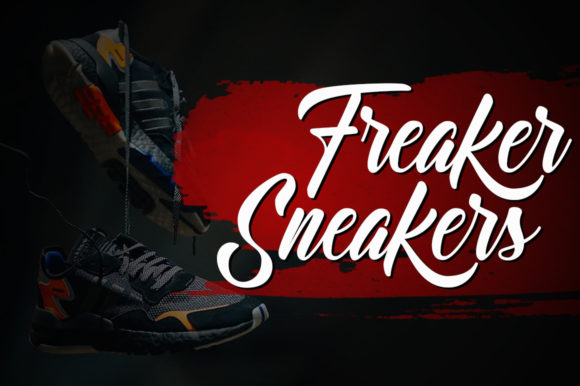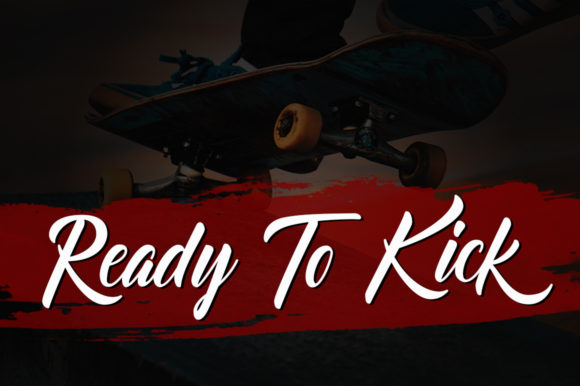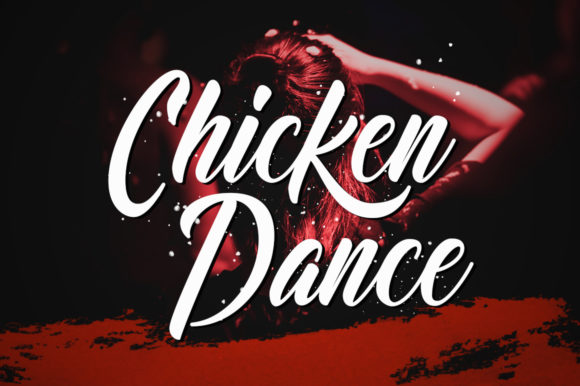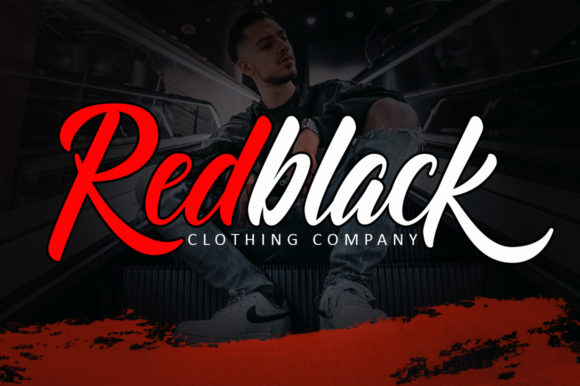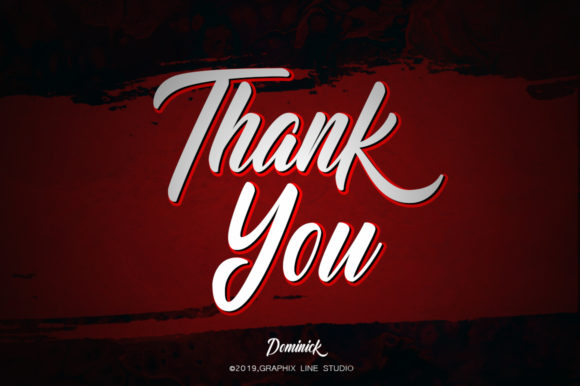
Introducing Dominick Font: The Bold and Modern Handwritten Font for Stunning Designs
Are you tired of using the same old fonts for your designs? Look no further! Dominick Font is here to revolutionize your creative process with its bold and modern handwritten style. This versatile font is perfect for designers and crafters who want to add a personal touch to their work. With Dominick Font, you can create beautiful designs in an instant, and take your projects to the next level.
What Makes Dominick Font So Special?
Dominick Font is a unique and stylish handwritten font that is both bold and modern. Its clean lines and elegant curves make it perfect for a wide range of design projects, from branding and advertising to packaging and digital media. Whether you’re a professional designer or a crafty DIY enthusiast, Dominick Font is sure to impress.
One of the standout features of Dominick Font is its versatility. It can be used for both personal and commercial projects, and is suitable for a variety of design styles, from minimalist to elaborate. The font is also highly legible, making it perfect for use in body text, headings, and titles.
Key Features of Dominick Font
- Bold and Modern Style: Dominick Font features a bold and modern handwritten style that is sure to grab attention.
- Clean Lines and Elegant Curves: The font’s clean lines and elegant curves make it perfect for a wide range of design projects.
- Highly Legible: Dominick Font is highly legible, making it perfect for use in body text, headings, and titles.
- Versatile: The font can be used for both personal and commercial projects, and is suitable for a variety of design styles.
How to Use Dominick Font in Your Designs
Here are a few tips for using Dominick Font in your designs:
- Use it as a Headline Font: Dominick Font is perfect for use as a headline font, adding a bold and modern touch to your designs.
- Pair it with Other Fonts: Experiment with pairing Dominick Font with other fonts to create a unique and stylish look.
- Use it in Digital Media: Dominick Font is perfect for use in digital media, such as social media graphics, blog posts, and website headers.
Why Designers and Crafters Love Dominick Font
Designers and crafters love Dominick Font for its unique and stylish handwritten style. The font is perfect for adding a personal touch to designs, and is highly versatile, making it suitable for a wide range of projects.
Here are a few reasons why designers and crafters love Dominick Font:
- Unique and Stylish: Dominick Font features a unique and stylish handwritten style that is sure to grab attention.
- Highly Versatile: Dominick Font is highly versatile, making it suitable for a wide range of design projects.
In conclusion, Dominick Font is a bold and modern handwritten font that is perfect for designers and crafters who want to add a personal touch to their work. With its clean lines, elegant curves, and highly legible design, Dominick Font is sure to impress. Whether you’re a professional designer or a crafty DIY enthusiast, Dominick Font is a must-have font for any design project.